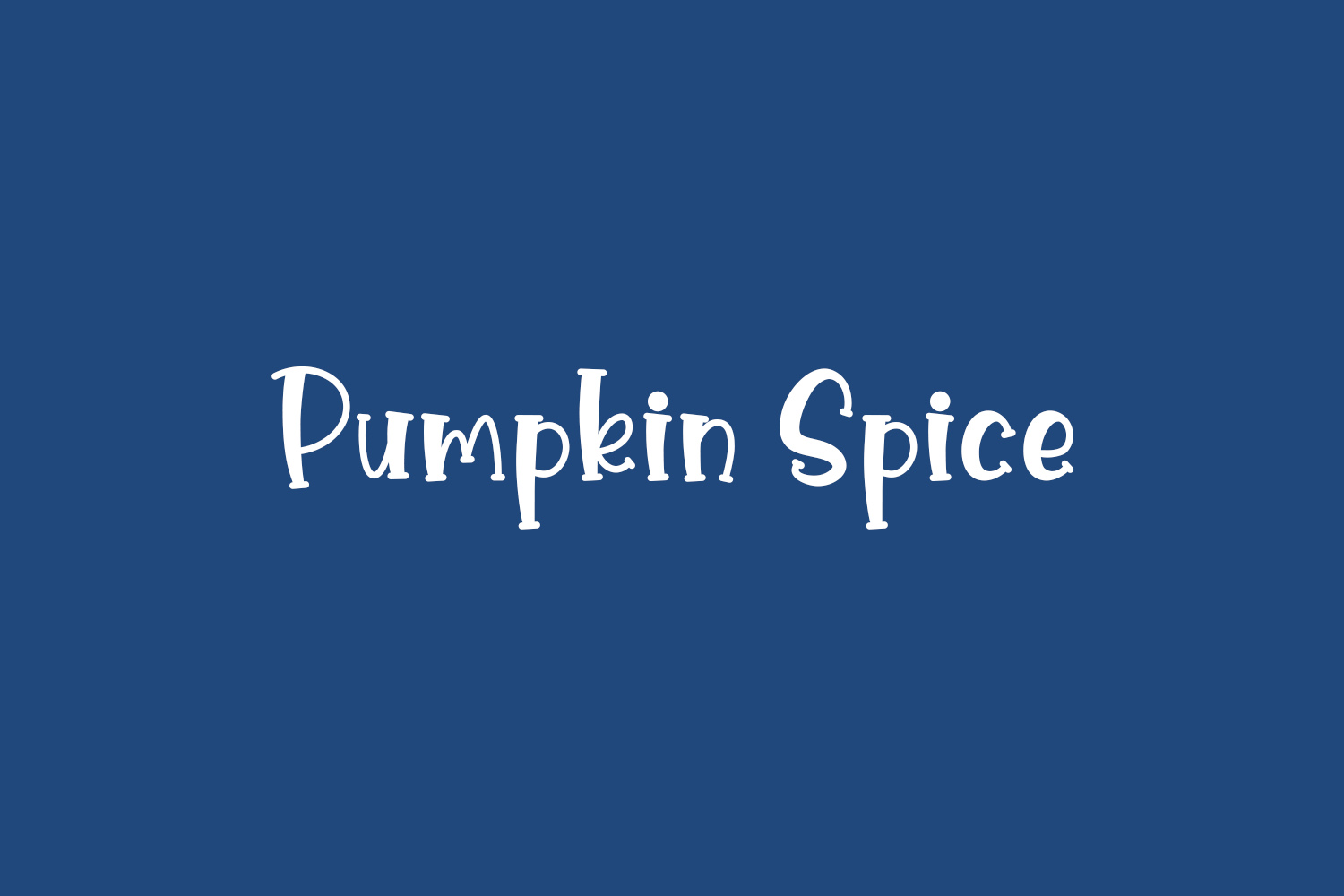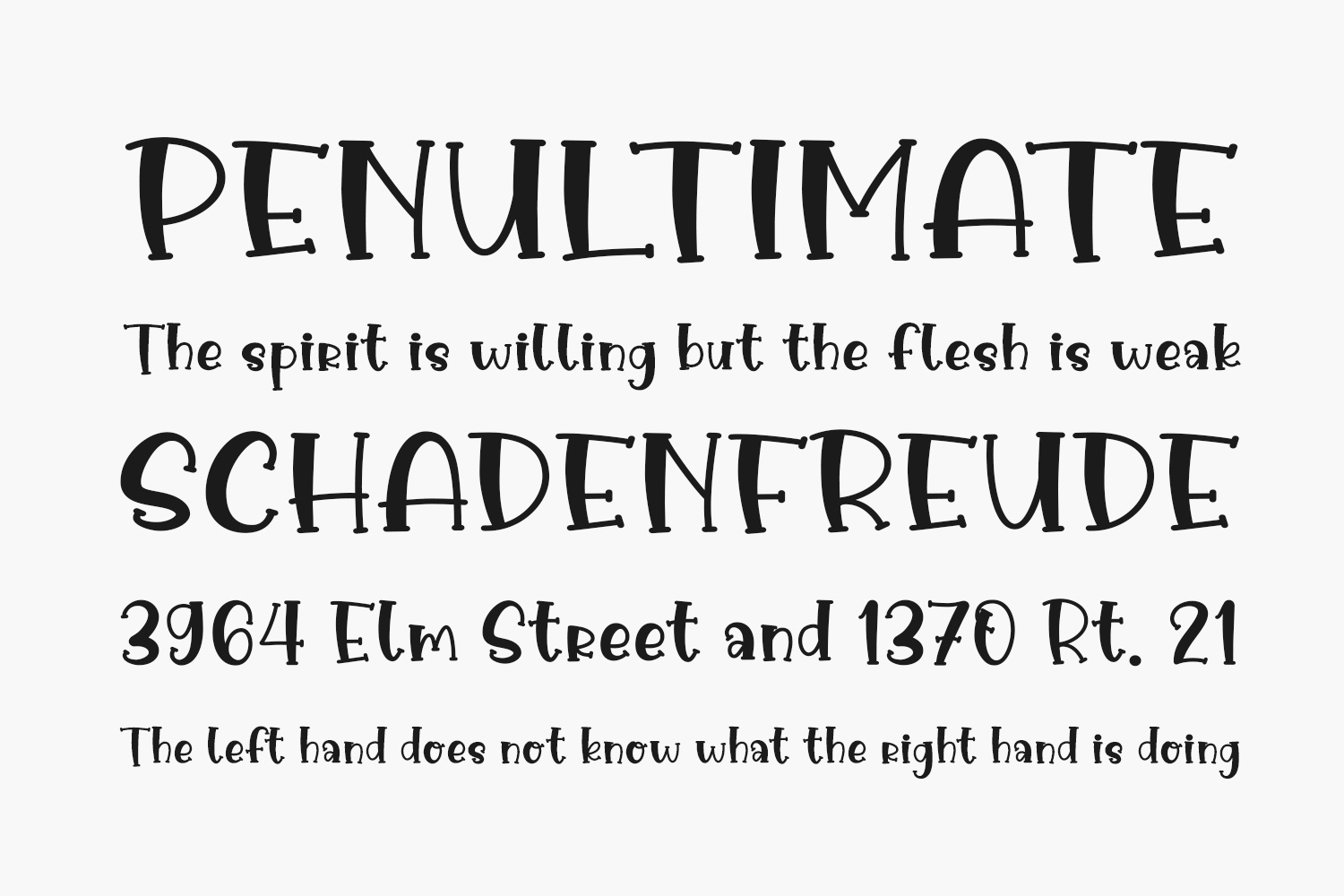
Pumpkin Spice Free Font is a playful serif font. Masterfully designed to become a true favorite, this font has the potential to bring each of your October ideas to the highest level. was designed by Graphix Line Studio and is free for personal use only. Please purchase the full version for commercial use.